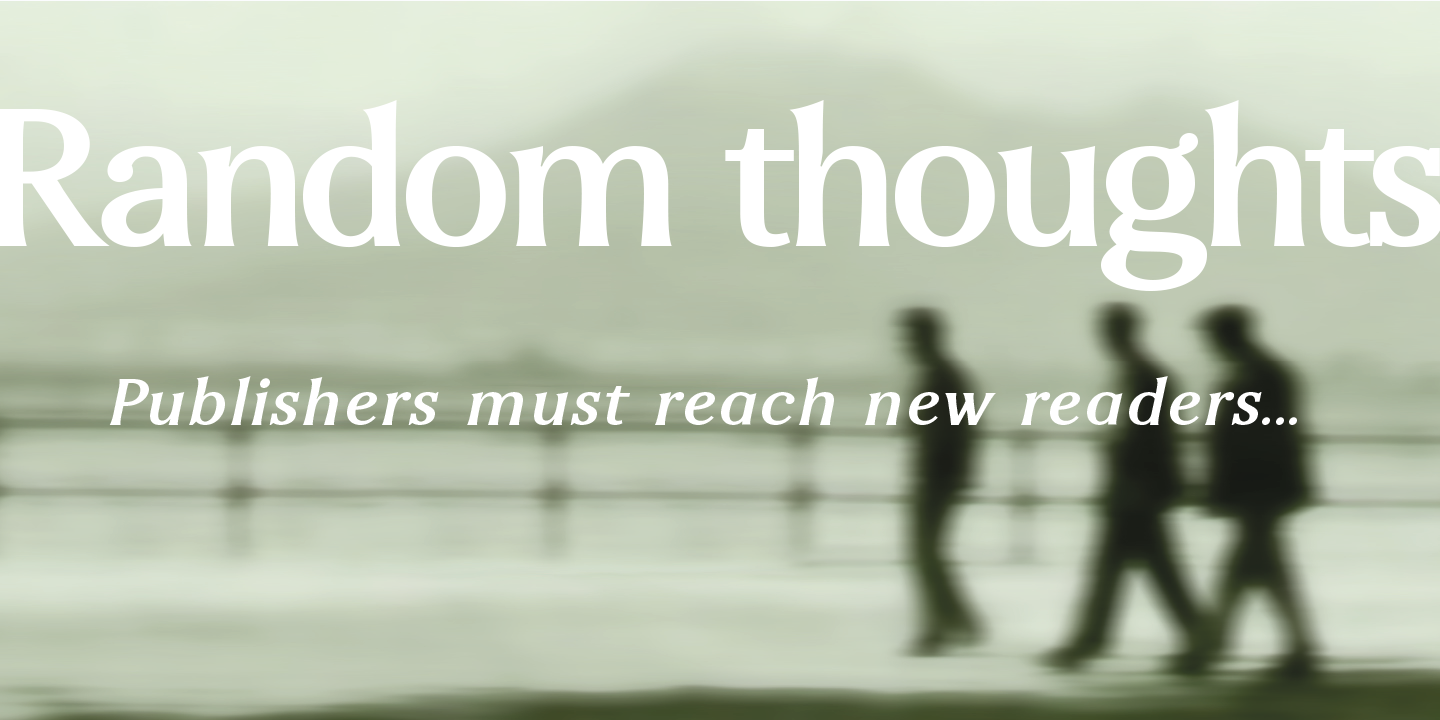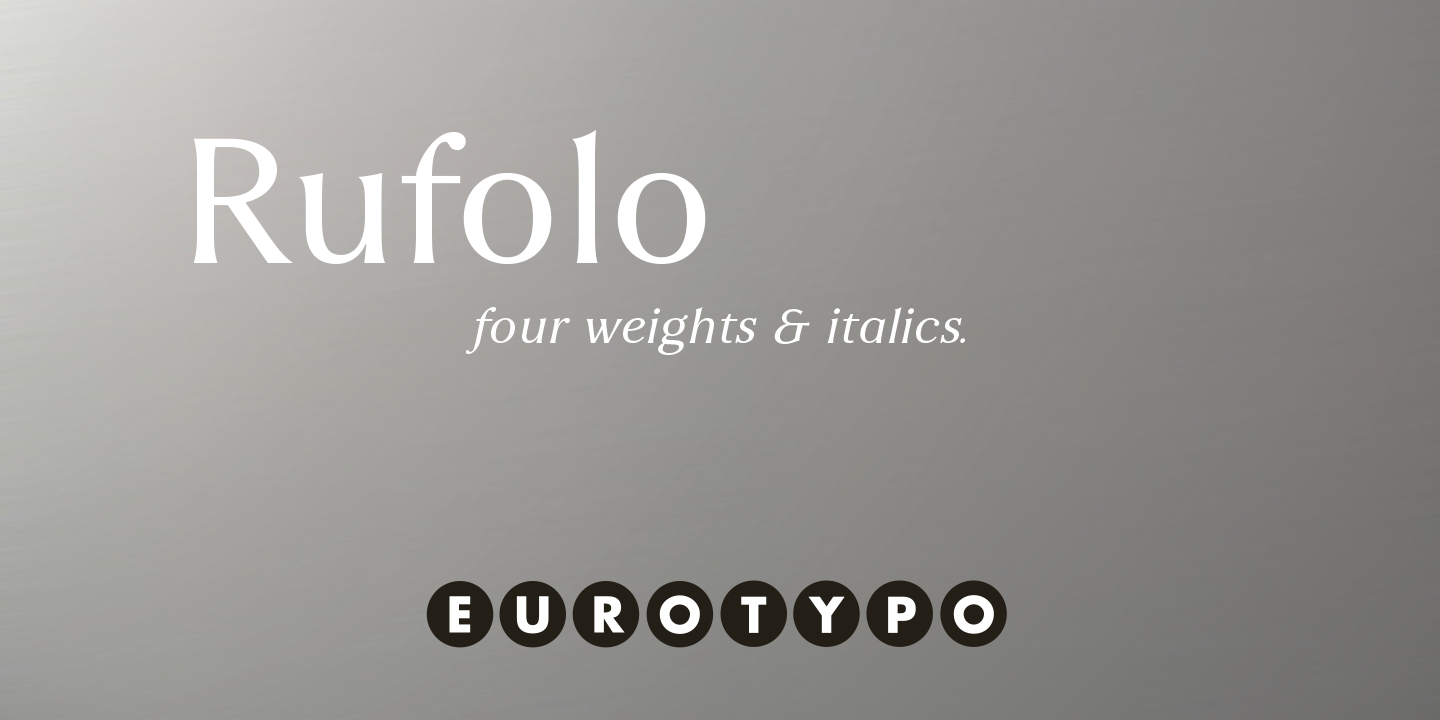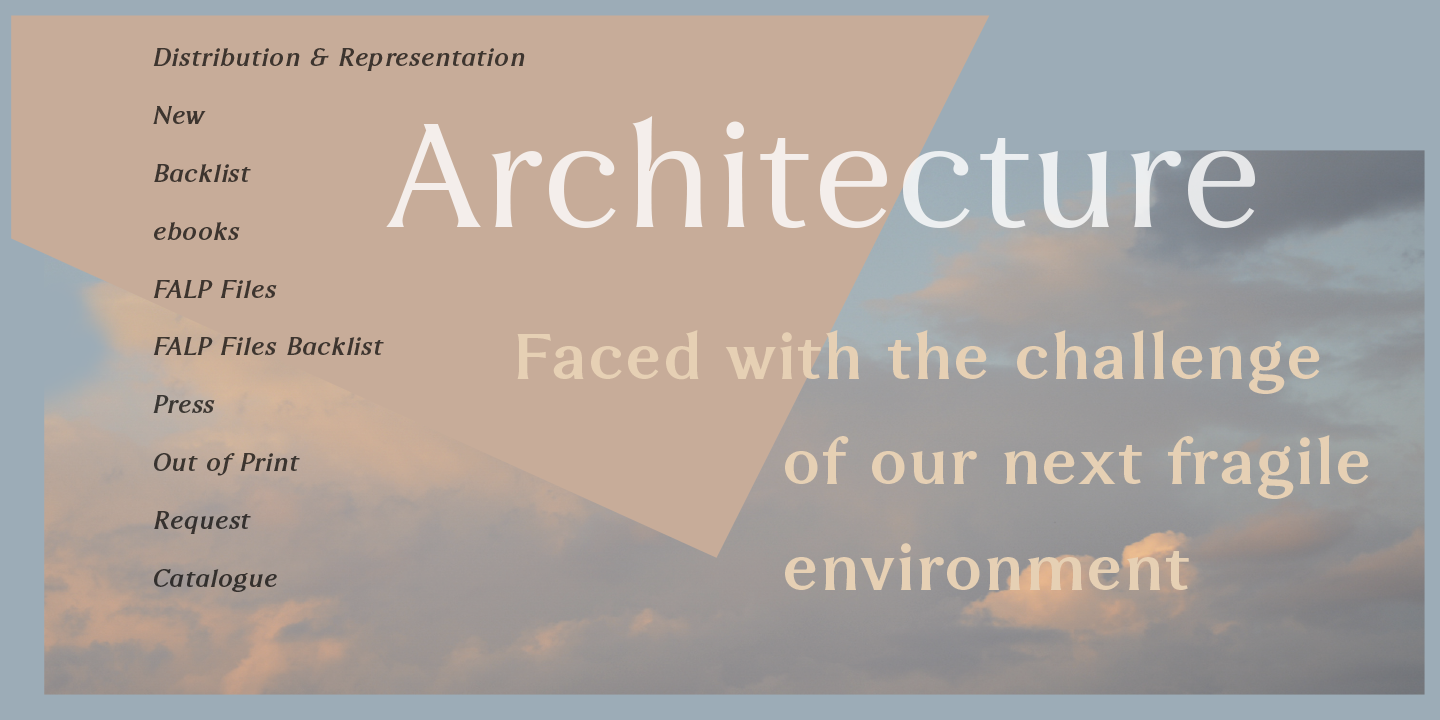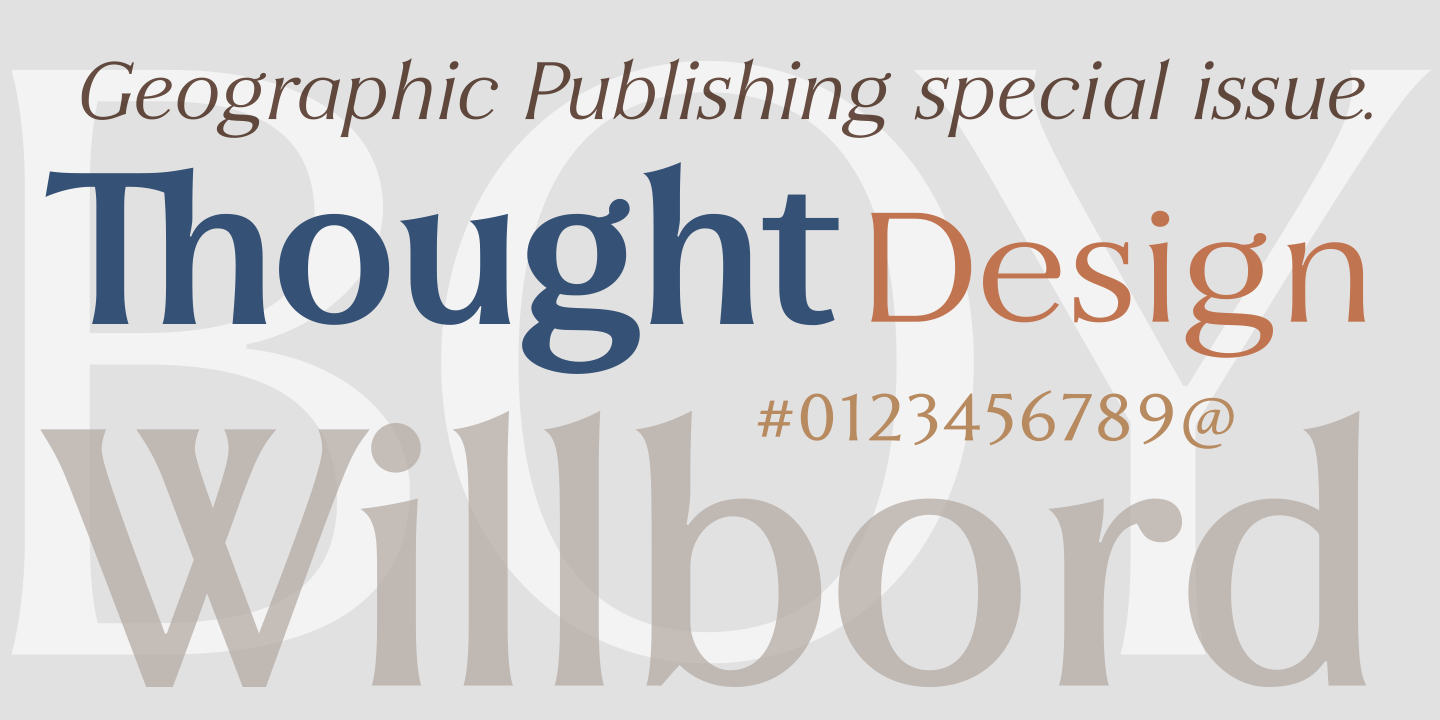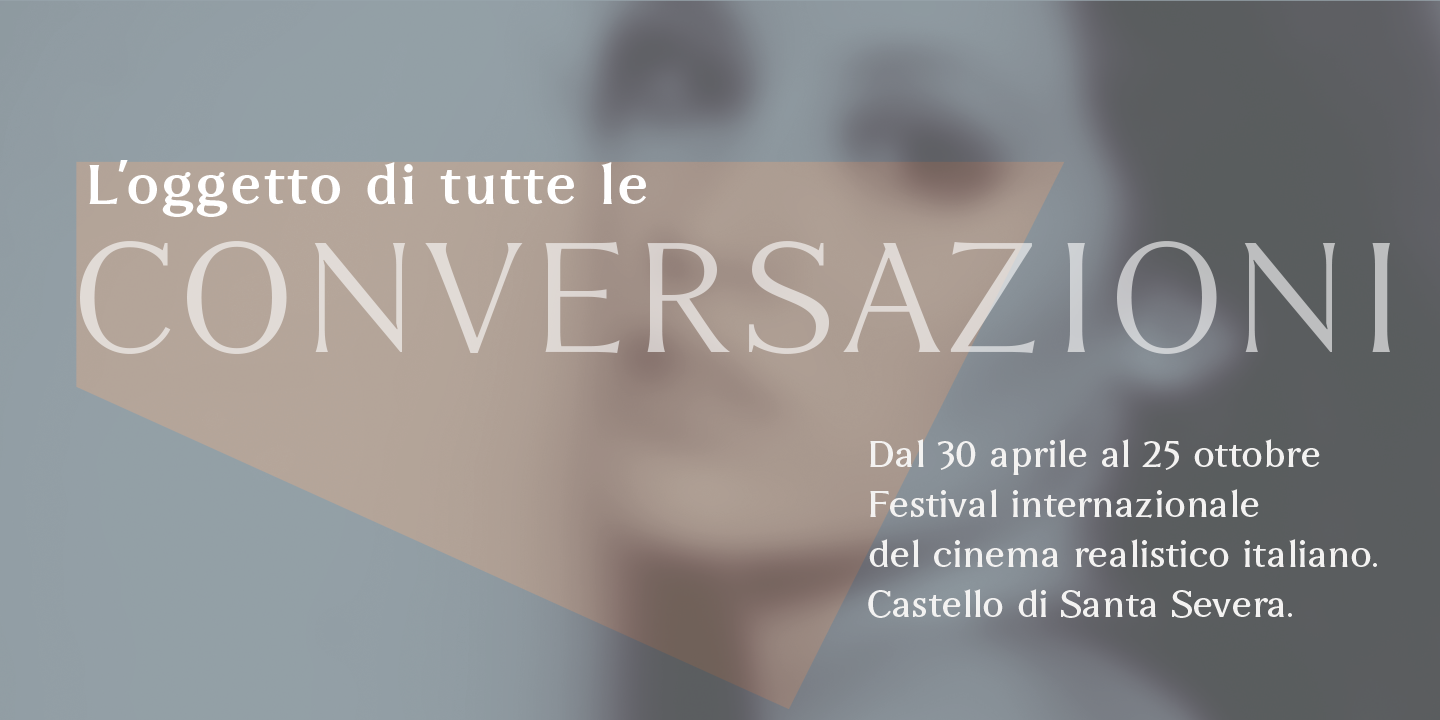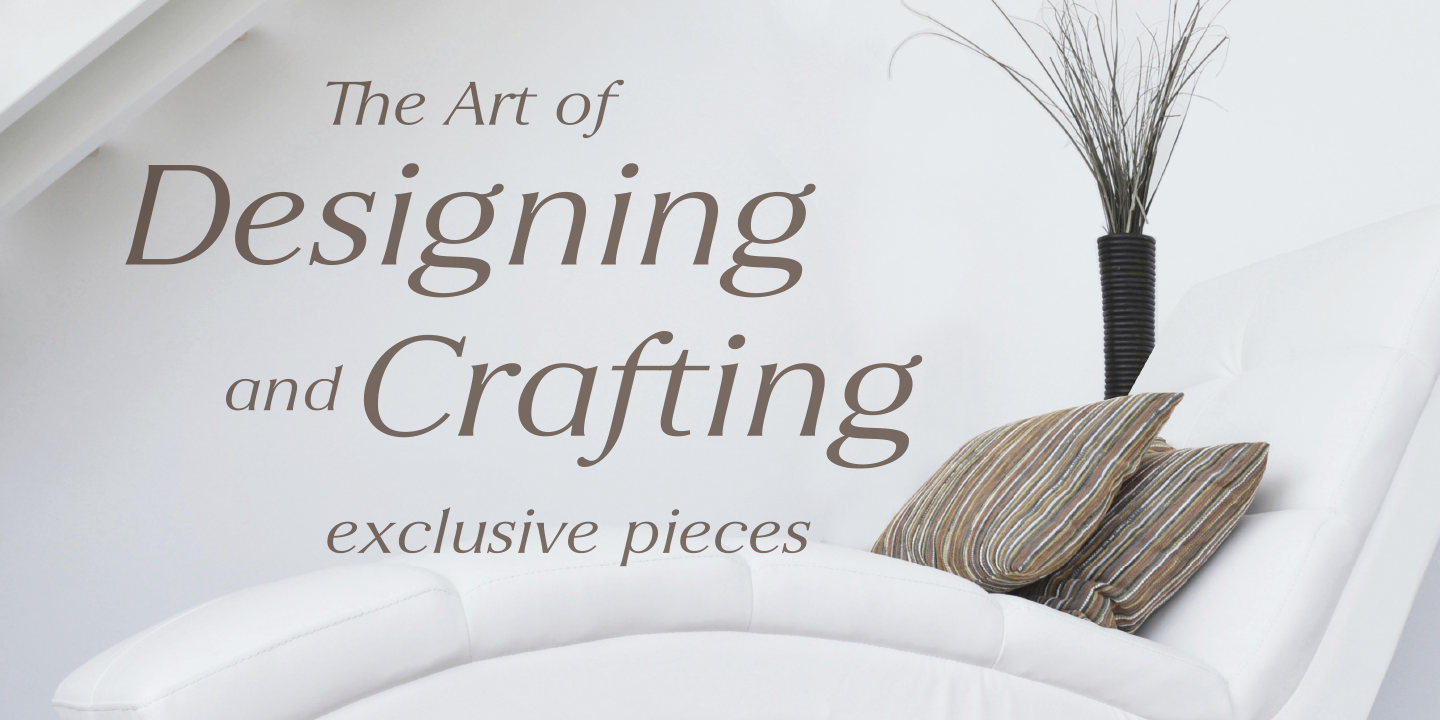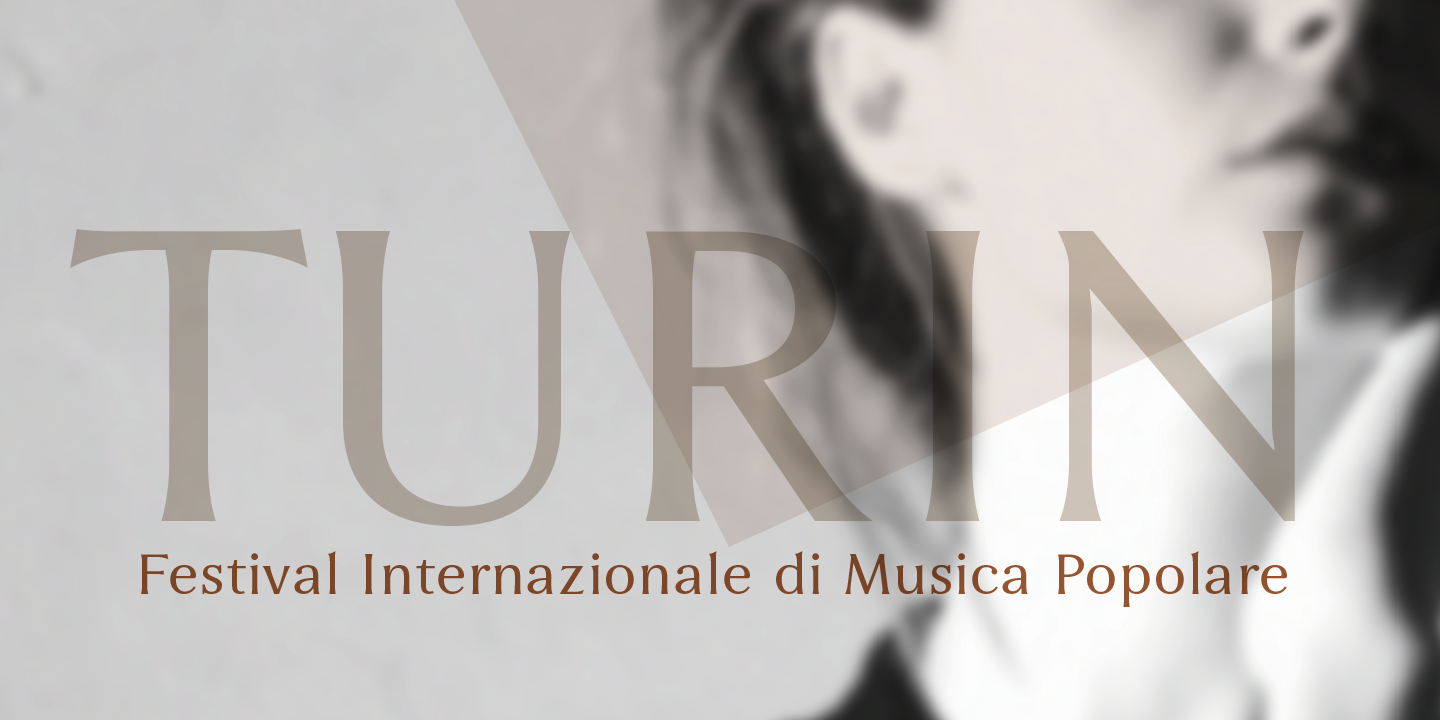
Rufolo
Classical Elegance
Rufolo is a versatile typeface family that blends classical elegance with modern functionality. Inspired by Roman epigraphic lettering and refined with contemporary proportions, it delivers a clean, confident voice that works beautifully across both display and text applications.
Distinctive Character
Its subtle, barely-there serif gives Rufolo a distinctive personality without sacrificing clarity. The result is a balanced design that feels sophisticated, timeless, and highly readable. Sharp stroke endings and carefully controlled details add character while maintaining a neutral, professional tone.
Historical Inspiration
Influenced by classics like Optima (Hermann Zapf, 1952), Albertus (William A. Dwiggins, 1932), and Stellar (Robert Hunter Middleton, 1929), Rufolo reinterprets the inscriptional tradition with a more regular structure and square-based proportions, making it practical, consistent, and easy to use in modern layouts.
Versatile Application
Perfect for branding, editorial design, packaging, signage, publishing, and corporate identities, Rufolo adapts effortlessly from elegant headlines to extended reading text.